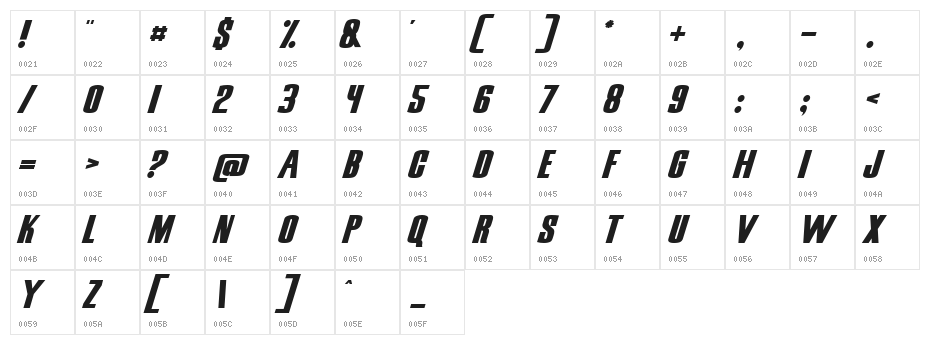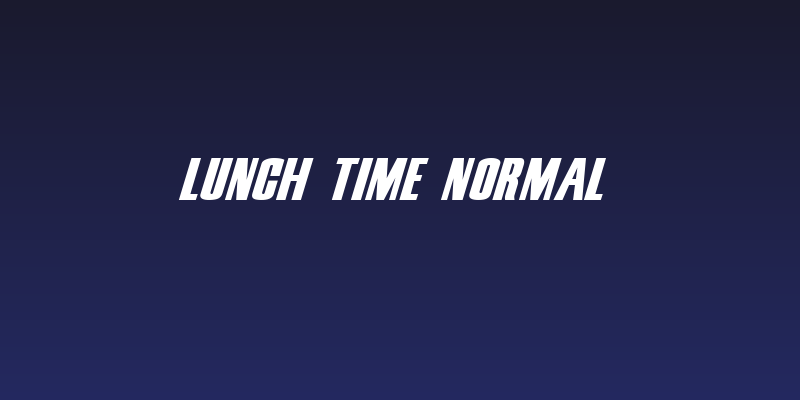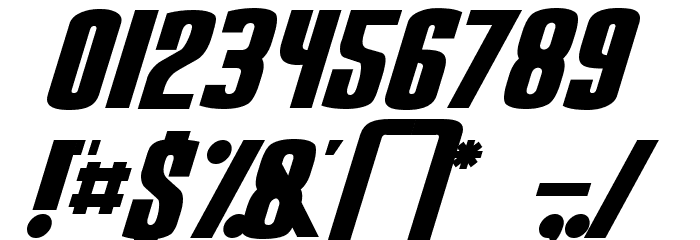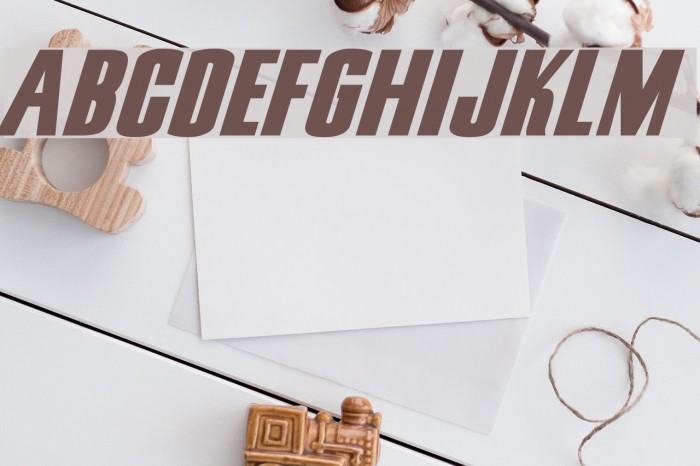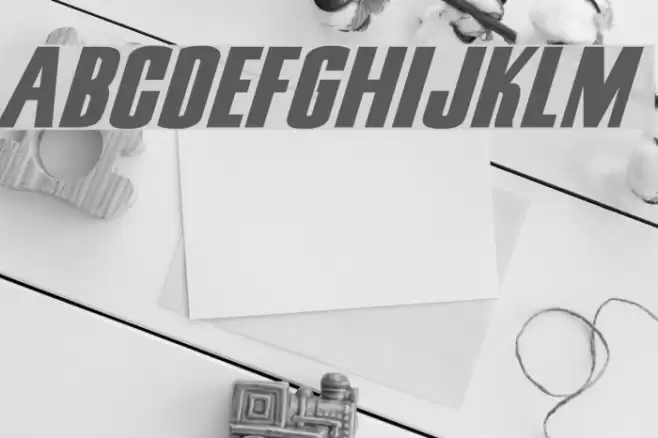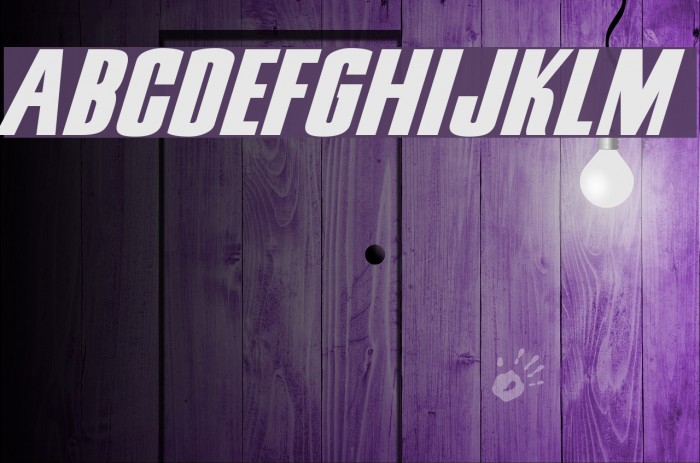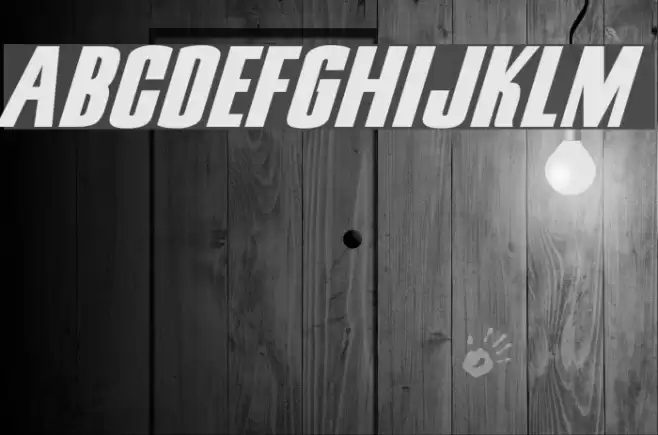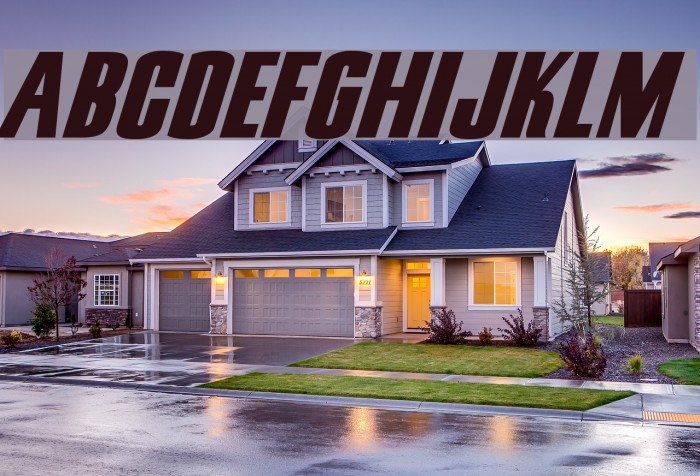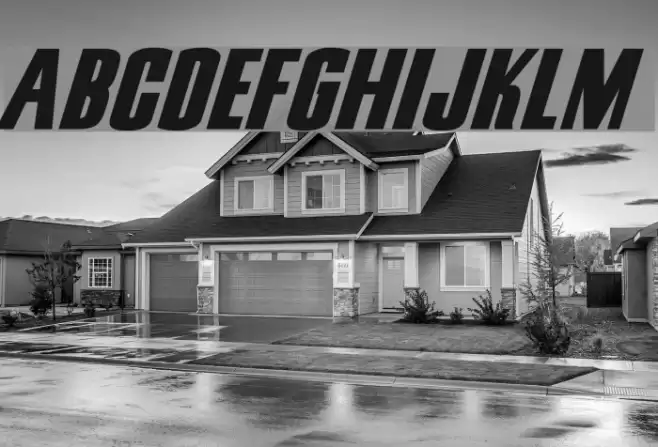
Lunch time Normal Font
Lunch time Normal Description
This font features a bold and dynamic design with a strong presence. The characters are slanted, giving it an italicized appearance, yet they maintain a consistent thickness throughout, indicating a low contrast. The letters are tightly spaced, enhancing its compact and impactful look. The style is modern and energetic, suitable for making statements. The uppercase and lowercase letters are distinct, with a slight slant that adds to its dynamic nature. The numbers and special characters follow the same bold and slanted style, ensuring uniformity across all elements.
| Proposed Projects | Ideal for sports branding, dynamic posters, and attention-grabbing headlines. |